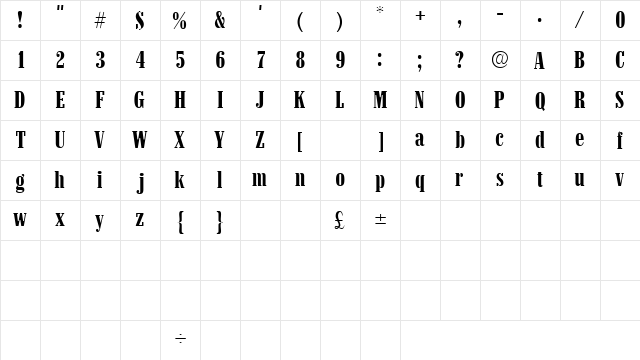
QuesadaSSK Regular
Design Context for QuesadaSSK Typeface
QuesadaSSK offers clean, dependable letterforms without strong stylistic allegiance, making it a practical choice for designers who need flexibility.